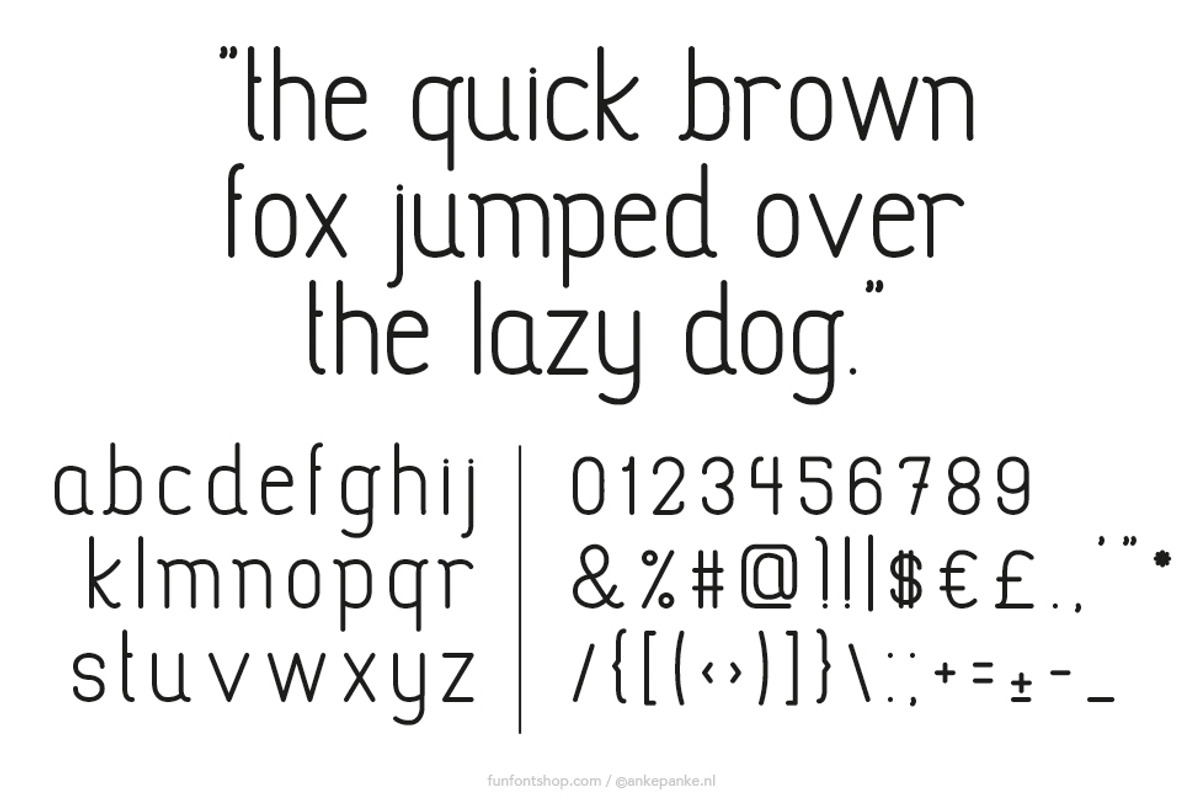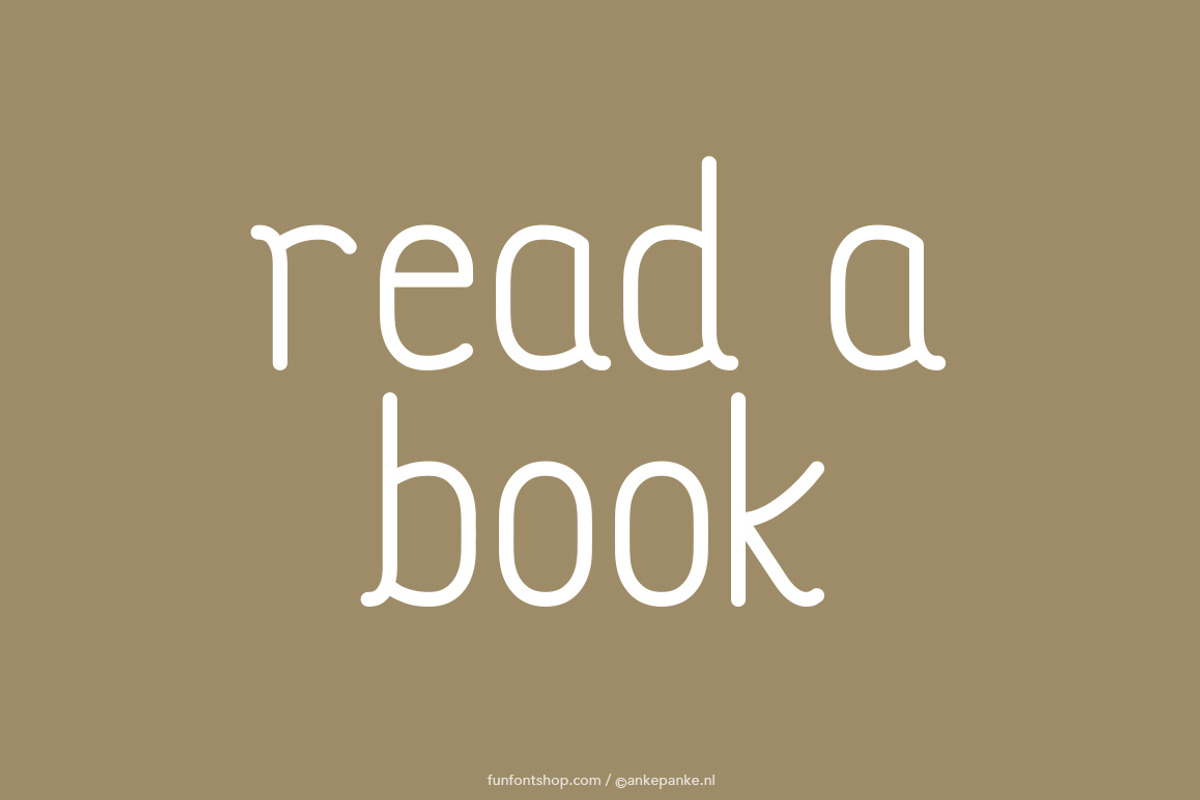
Read a Book font
Classic letters with a modern twist. This font is created digitally, so big or small: it's always clean.
- Letters lowercase, accents and numbers
- Punctuation !?#%&*+=-_,.:;'"/|£€$@({[]})